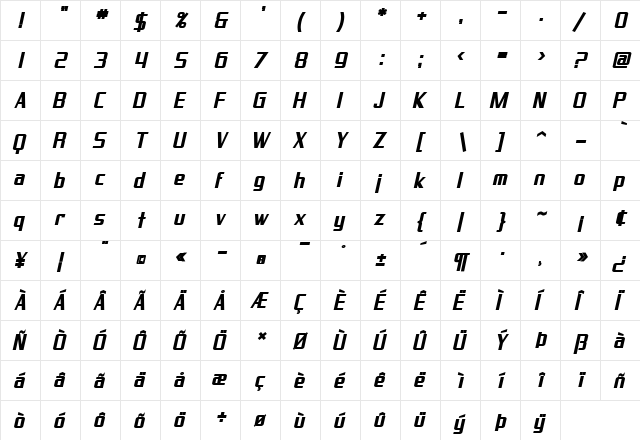
SF Proverbial Gothic Bold Oblique
Design Context for SF Proverbial Gothic Typeface
SF Proverbial Gothic takes a clean, functional approach — its unadorned letterforms prioritise legibility and work reliably across screen and print environments. The dynamic lean of this cut emphasises speed and emphasis in any layout. Its bold stroke weight gives it real presence on the page.
Well-suited to navigation labels, product packaging, and anywhere legibility at scale is essential.
Font Pairing: Use SF Proverbial Gothic for headlines alongside a lighter-weight sans or serif for body copy to establish clear visual hierarchy.
Pro Tip: Use SF Proverbial Gothic for UI labels, navigation, and short-form body copy where clean legibility is the priority.